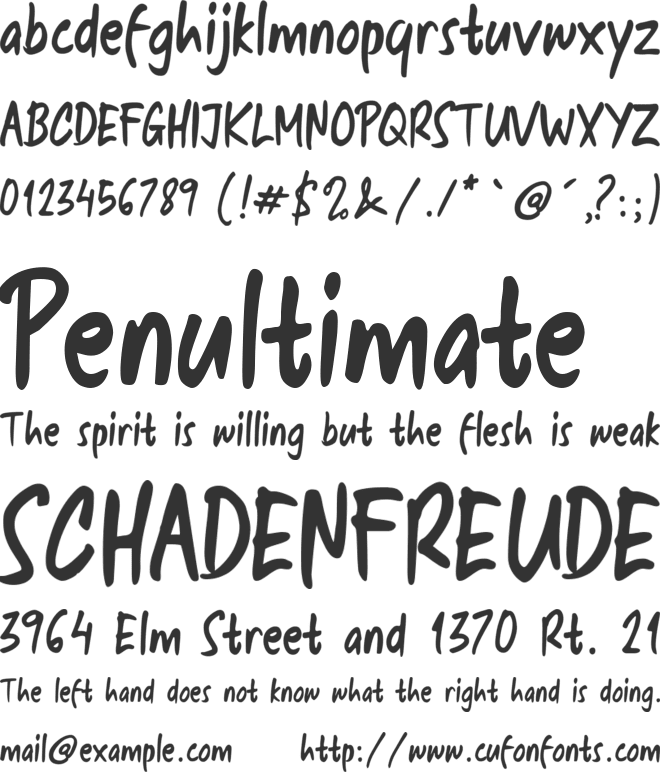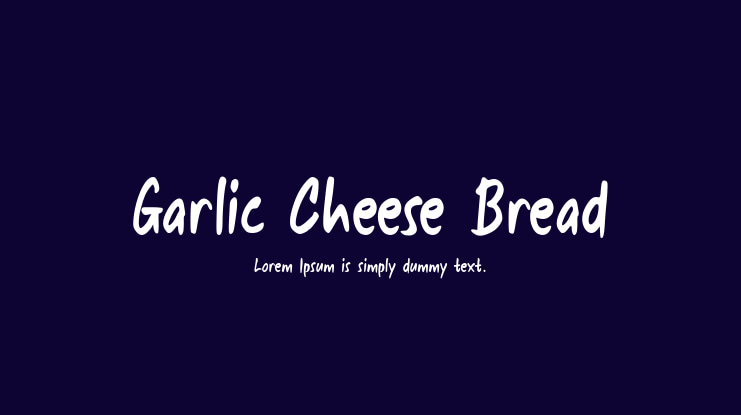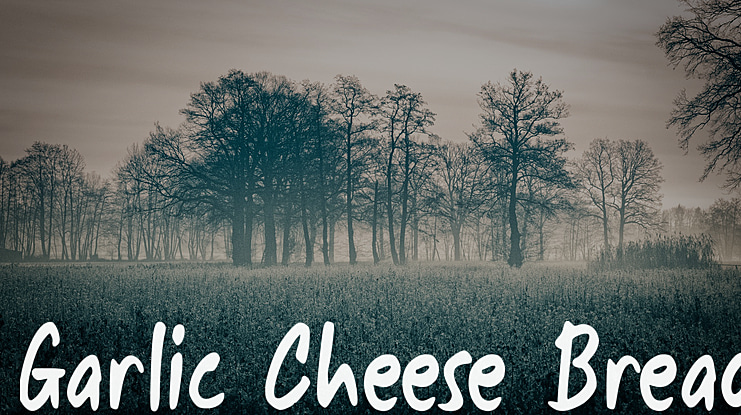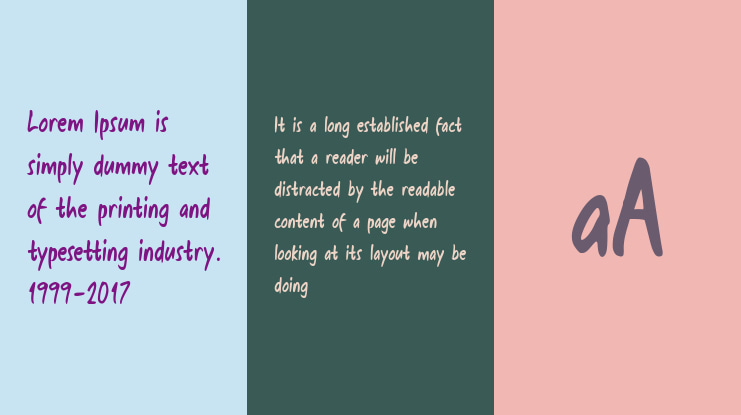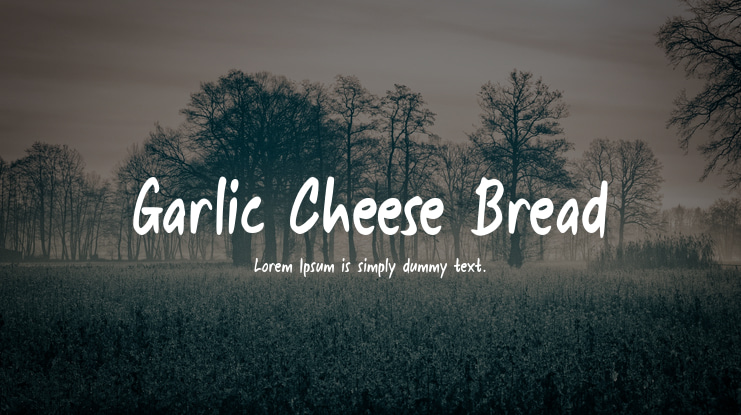
Garlic Cheese Bread Font
Garlic Cheese Bread is a simple handwritten font.
Great to use on illustrations, product packaging, book cover, merchandises, etc.
Multilingual Support.